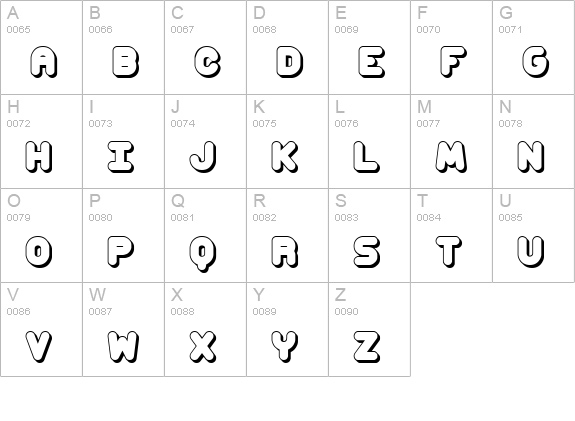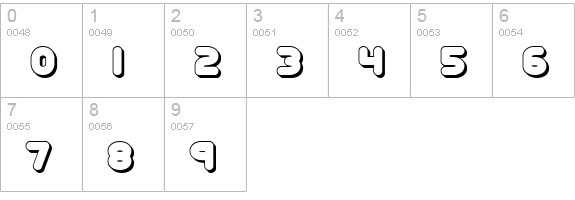
Corpulent Caps Shadow BRK Font Details
Corpulent Caps Shadow BRK font is a bold and distinctive typeface that exudes a sense of strength and presence. With its thick, shadowed outlines and striking design, this font is perfect for making a statement in your design projects. The uppercase characters are emphasized with a unique shadow effect, adding depth and dimension to your text. What makes Corpulent Caps Shadow BRK font even more appealing is that it is available for free download at FontsMarket.com. This means you can easily access and use this eye-catching font in your personal and commercial projects without any cost. Whether you're creating posters, logos, headlines, or any other design work, Corpulent Caps Shadow BRK font is sure to make a bold impact and grab attention. Download it today and elevate your designs with this powerful and stylish typeface.